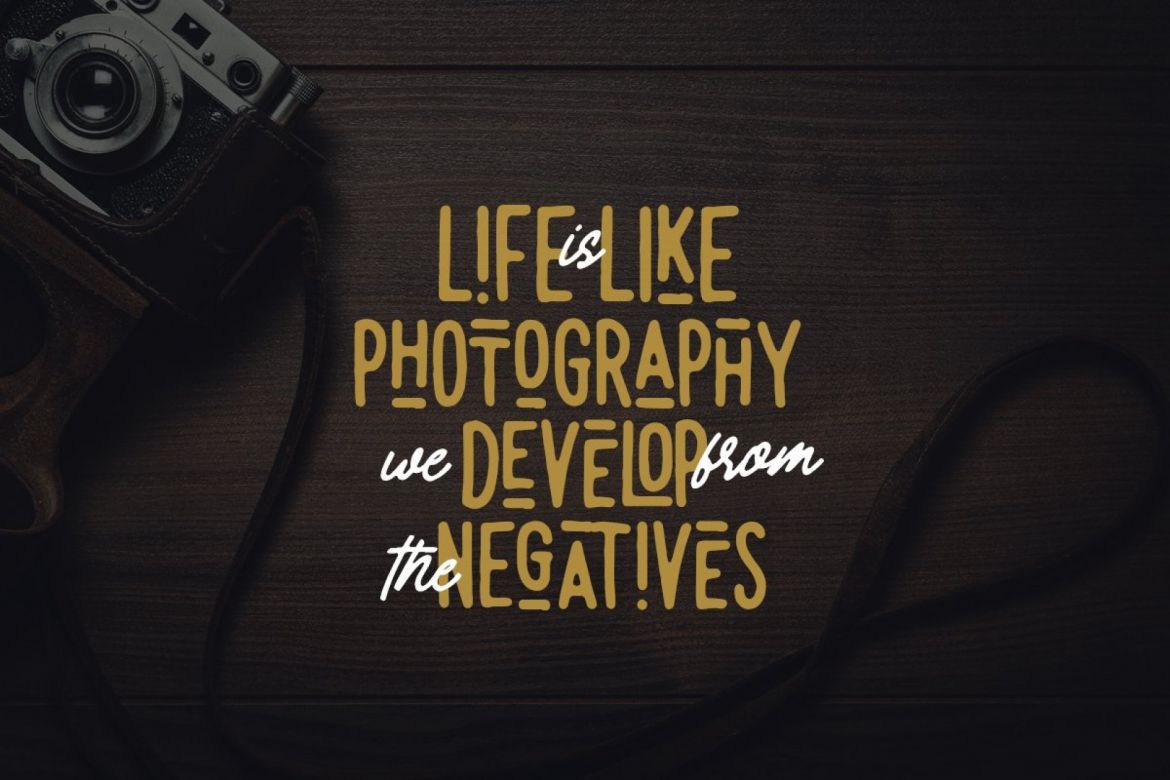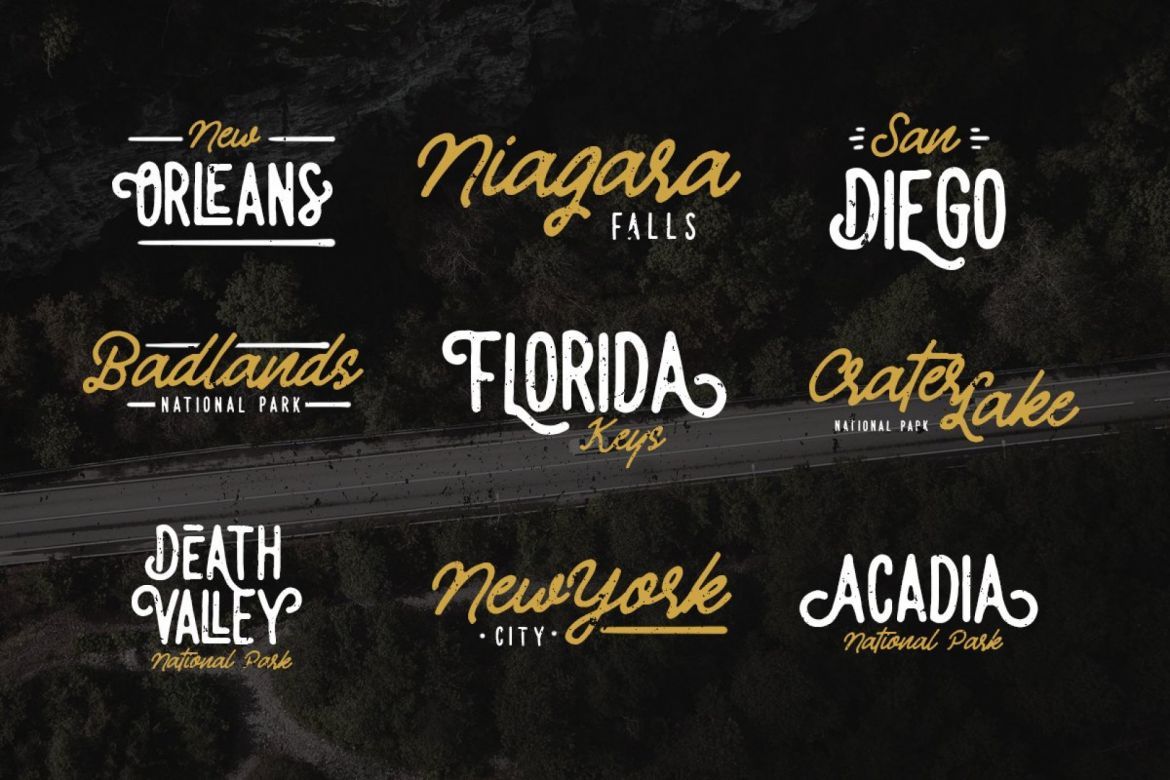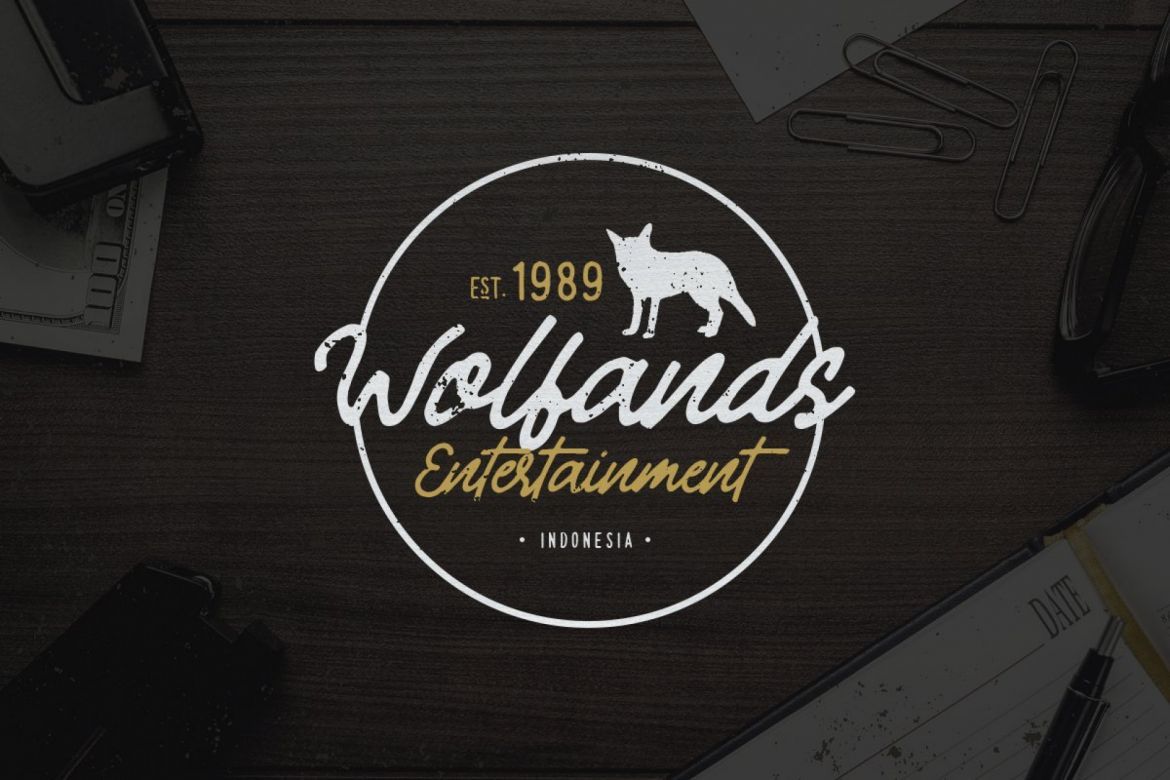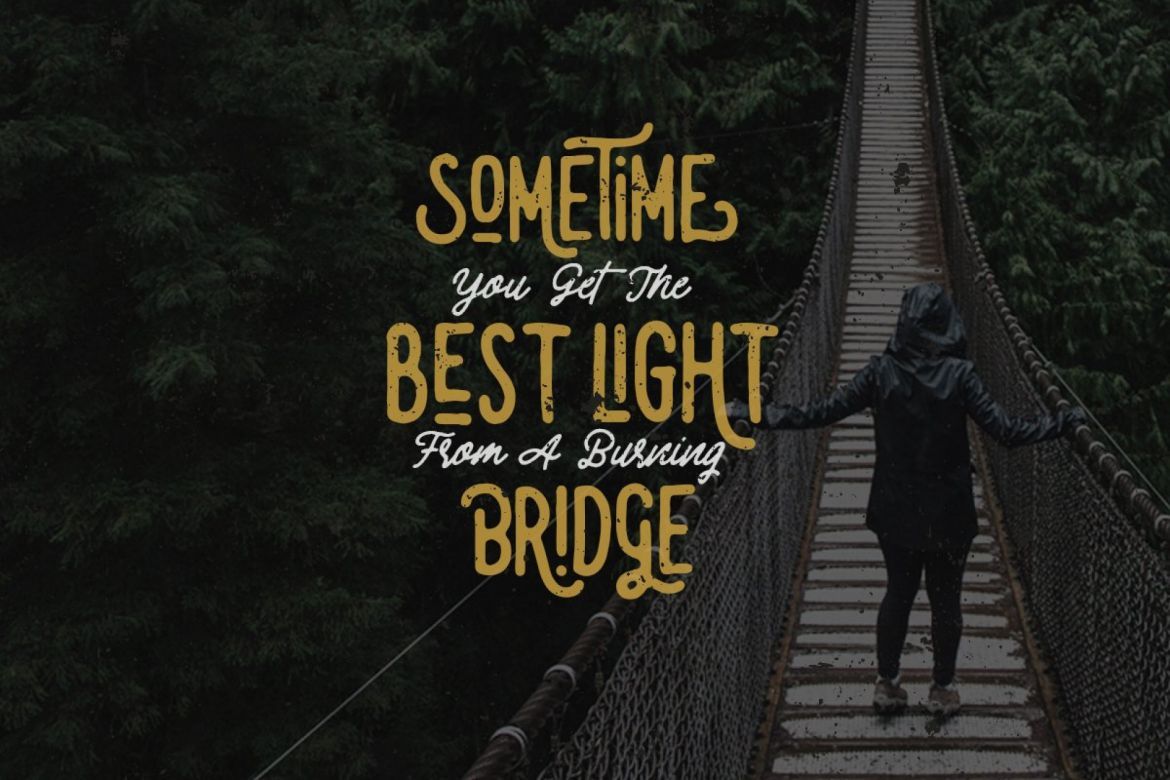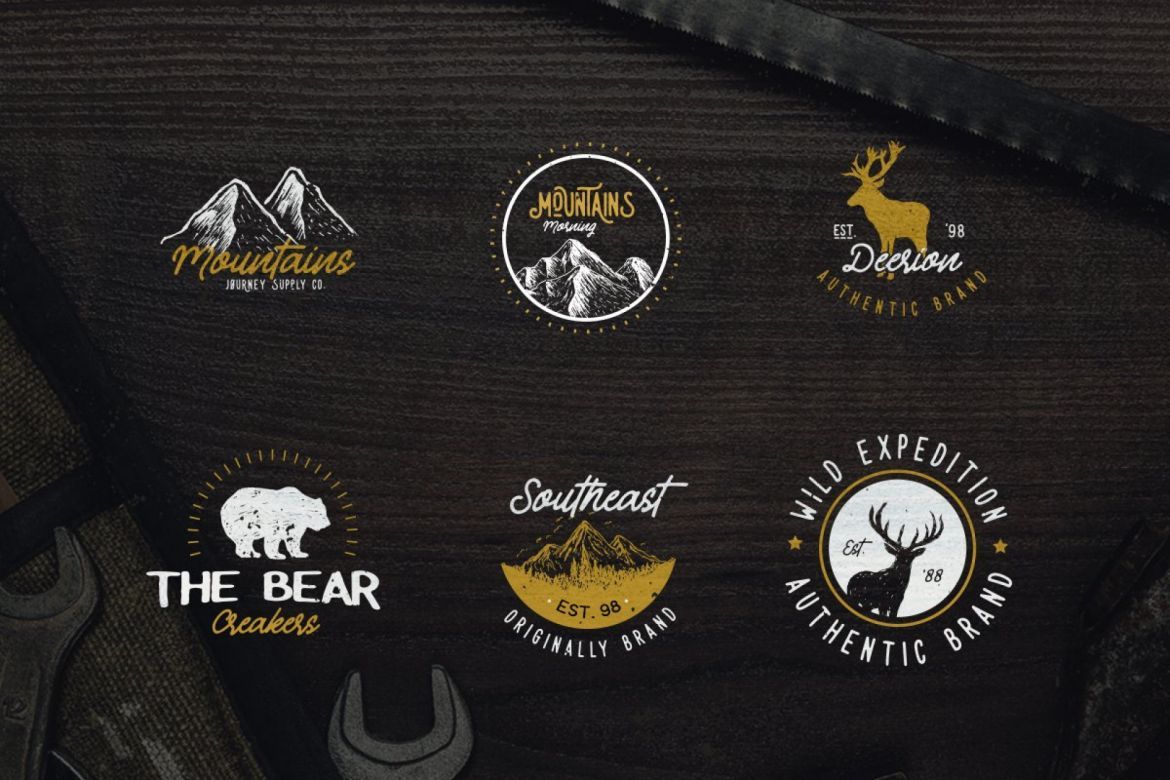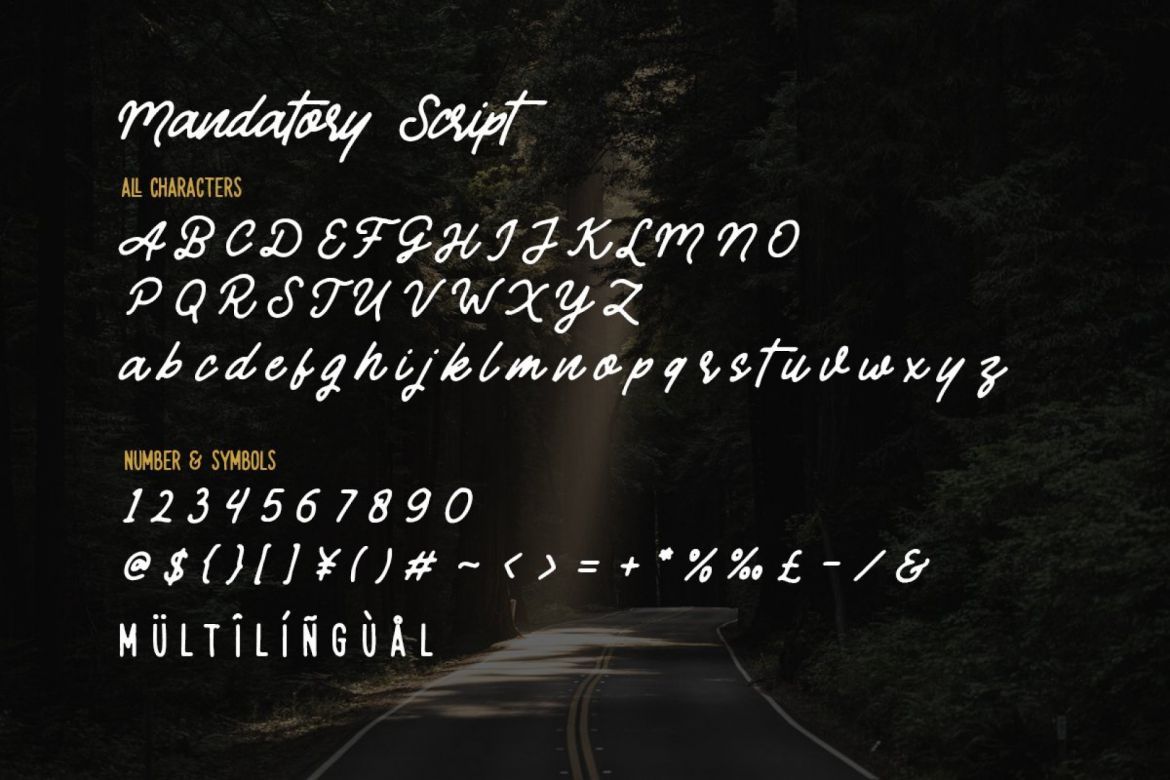
Mandatory Font Duo
Mandatory - Vintage Font Duo
• perfect for use in logotype / wordmark, badges, sign boards, posters, title text, clothing, wedding invitations, etc.
• this font comes with unique sans and scripts with a retro feel.